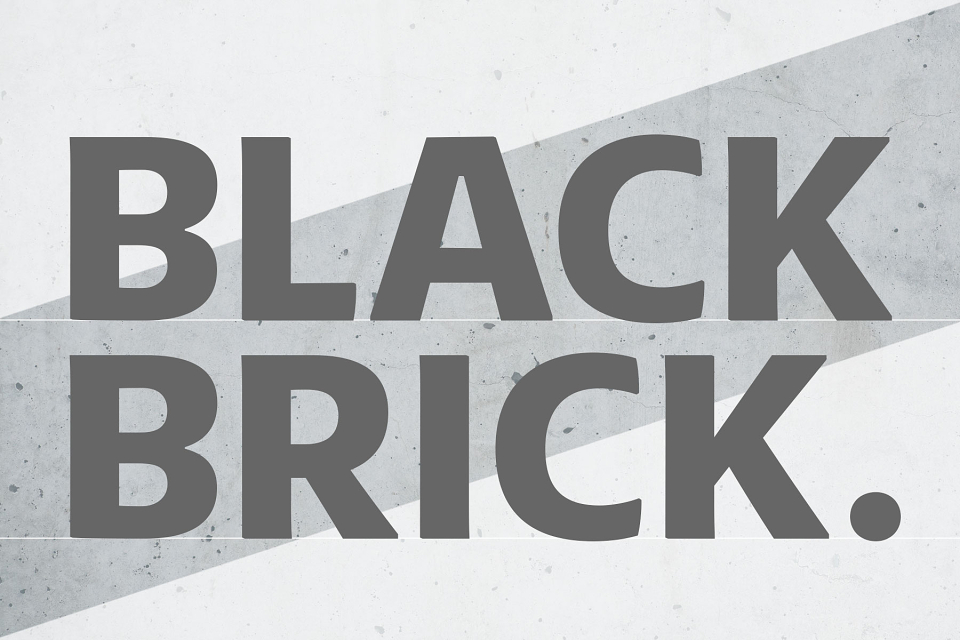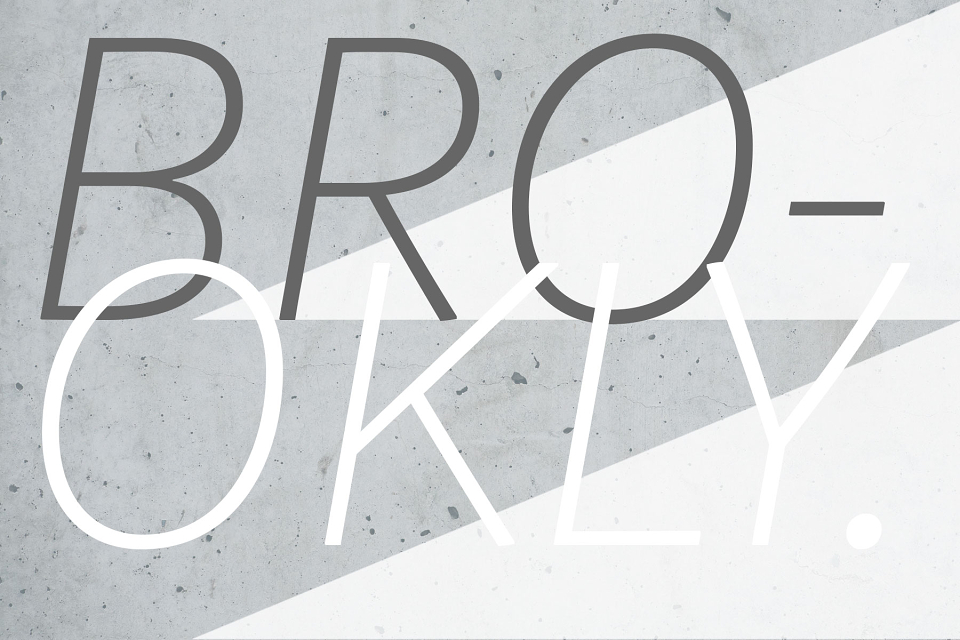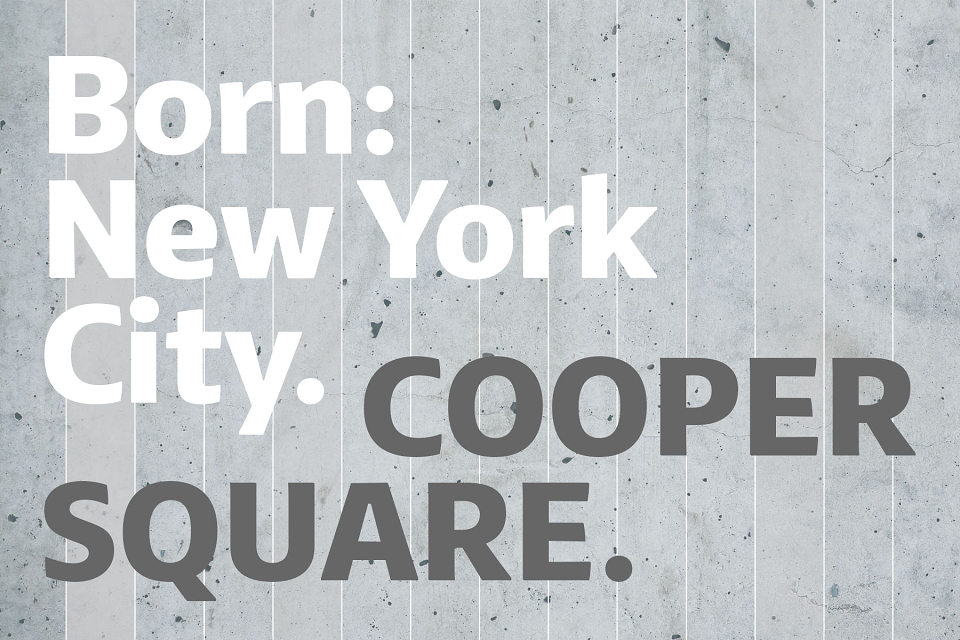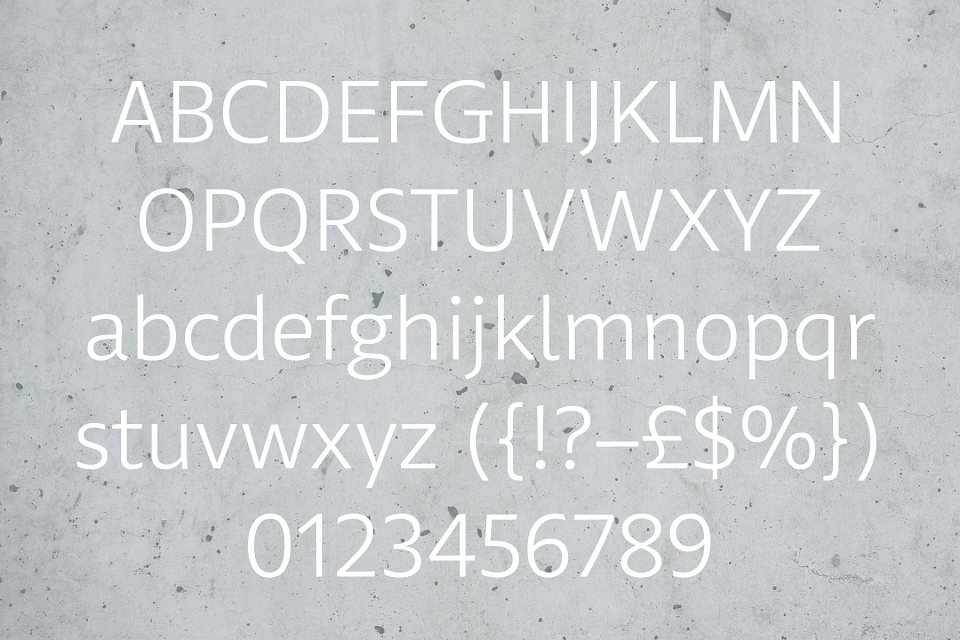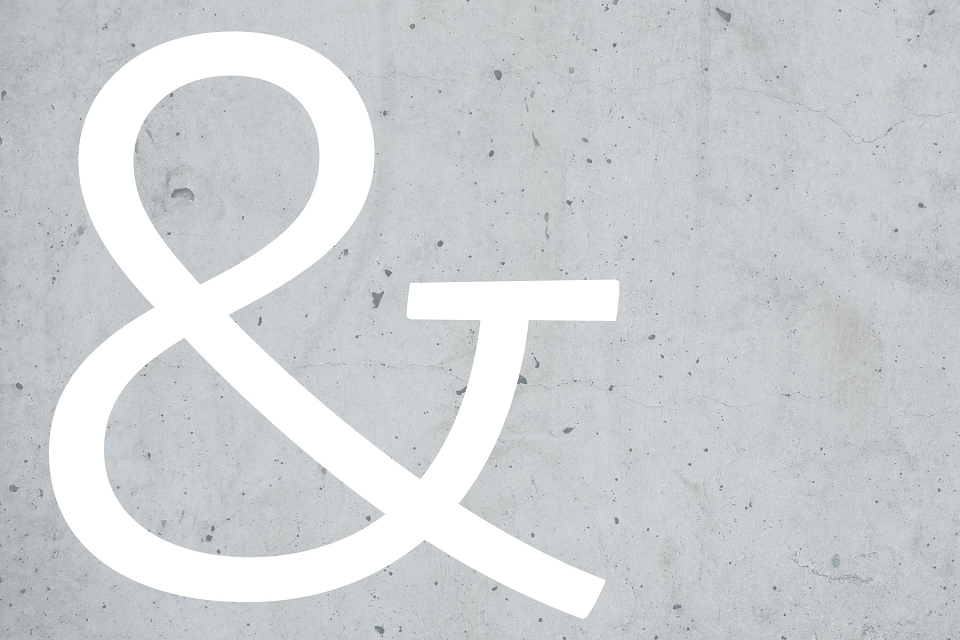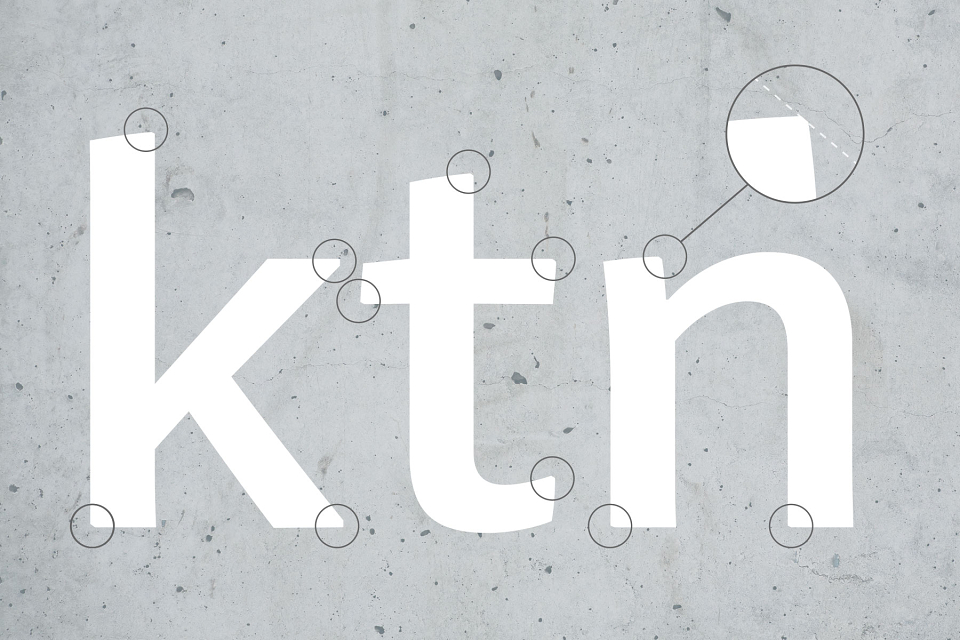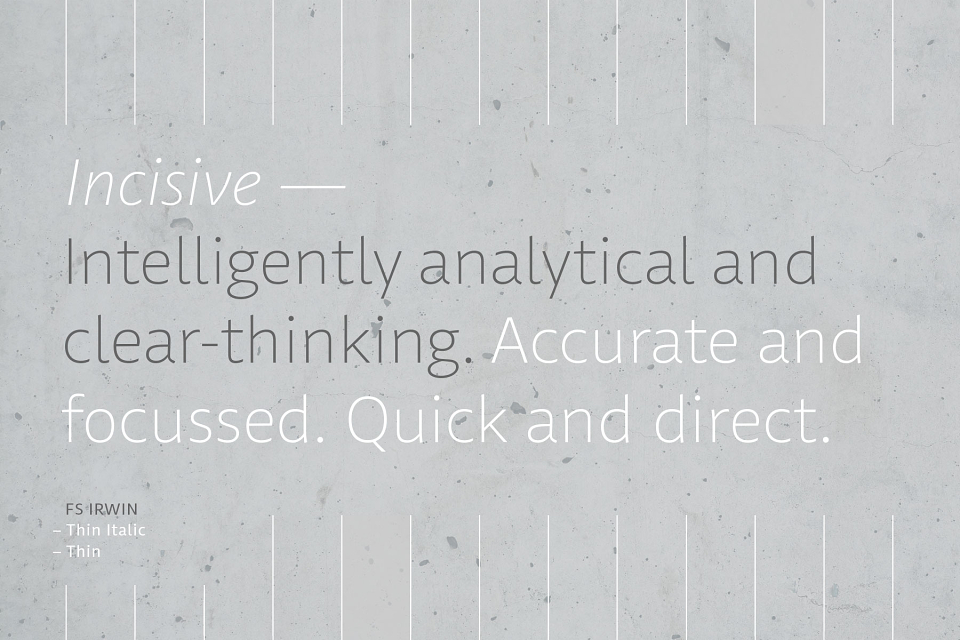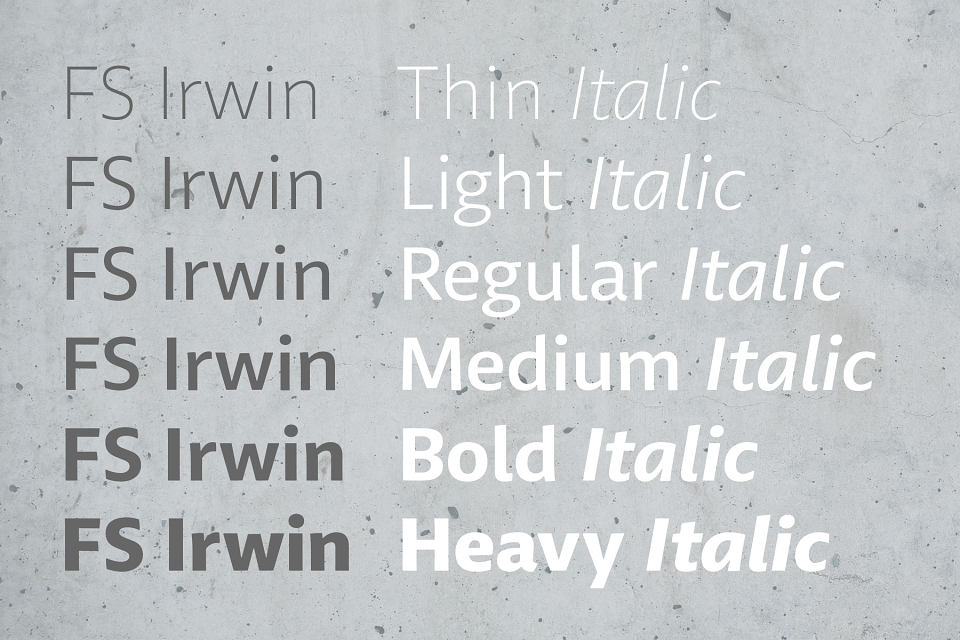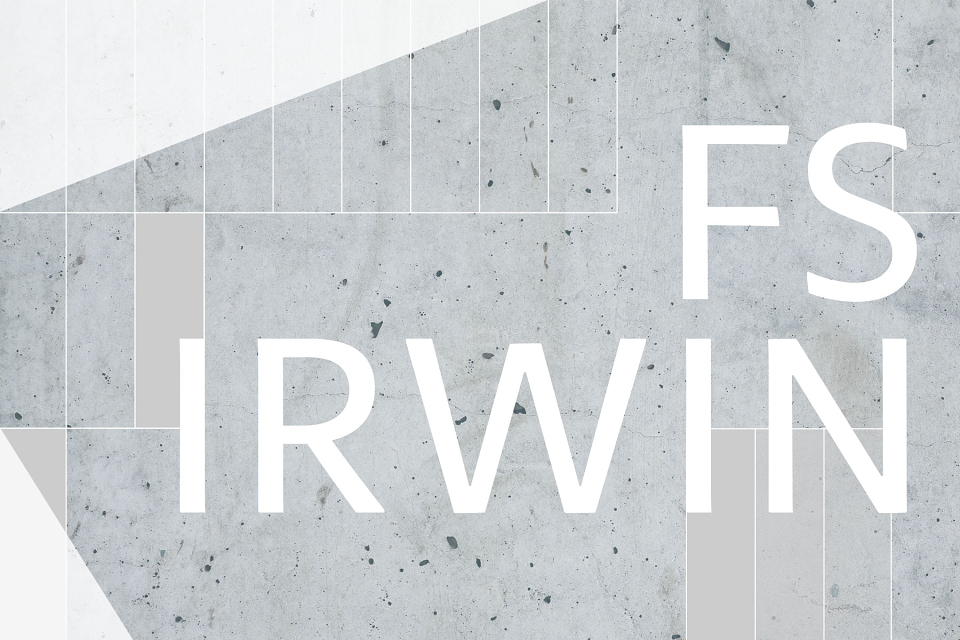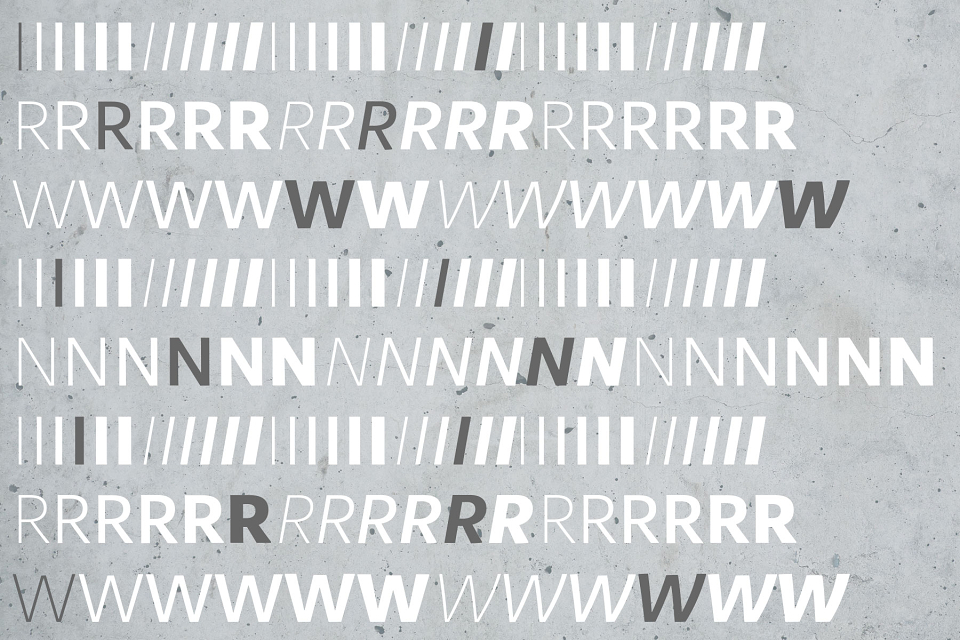
New typeface FS Irwin takes a transatlantic look at lettering.
Designed by senior designer Fernando Mello, the font was inspired by New York and his time studying typeface design at the Cooper Union’s five-week Cooper Condensed Program.
The designs originated in Mello’s studies in inscriptional lettering and calligraphic exercises, as he worked on a brief to design a clear, yet unique typeface that could communicate well, while avoiding loud and overtly mannered design features. His explorations were then digitised and adapted into a more workable humanist sans serif structure.
Rather than focusing on quirks or distinctive characteristics, FS Irwin conveys quality design and simplicity. As such, the proportions and details mean it is adaptable across any situation or application, from more playful designs to serious corporate identities thanks to a welcoming, yet sincere tone.
Mello adds: ‘Extensively tested and precisely drawn text-oriented typefaces are what I enjoy designing the most. There is a beauty and a different approach, a different way of making them interesting, sellable and usable rather than adding flicks or unexpected details.’
New Fontsmith typeface FS Irwin is inspired by architecture, New York and cosmopolitan city life